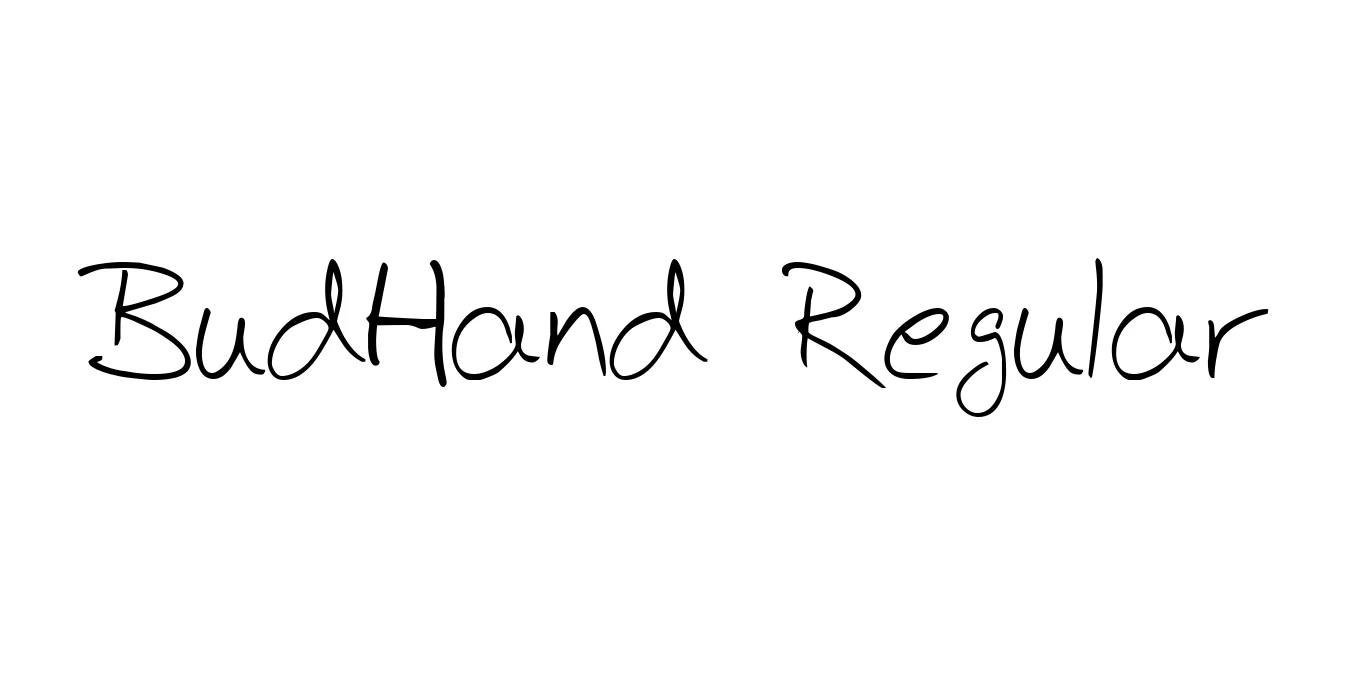
BudHand Regular
Designed by Bud Hand
| Category | Handwriting Script |
| Designer | Bud Hand |
| Similar Fonts | Bradley Hand, Ink Free, Lucida Handwriting, Segoe Print |
BudHand Regular emerged as a prominent choice in the late digital era for designers seeking an authentic, human touch without the stiffness of formal scripts. Developed to replicate the effortless flow of a felt-tip marker, it belongs to the genre of casual hand-lettered typefaces that gained traction during the rise of personalized digital correspondence. Unlike many scanned handwriting fonts of its time, BudHand was meticulously digitized to ensure clean paths while maintaining the organic quirks of manual penmanship, making it a staple for informal branding and educational materials for decades.
Technically, BudHand Regular exhibits a remarkably balanced visual weight that bridges the gap between a monoline script and a natural marker stroke. Its letterforms feature rounded terminals and a generous x-height, which significantly enhances legibility even at smaller point sizes—a rarity for handwriting-style fonts. The counters are kept open, and the ascenders and descenders are restrained to maintain a compact vertical rhythm. This design choice prevents the visual clutter often associated with script fonts, allowing the typeface to perform exceptionally well in both short-form display headings and brief conversational body text.
BudHand Regular Best Uses
Ideal for signatures, personal logos, and creative identity systems.
Perfect for classroom worksheets and instructional materials needing a friendly tone.
High legibility makes it excellent for overlaying text on images and quotes.
Adds a sincere, handwritten feel to digital and print invitations.